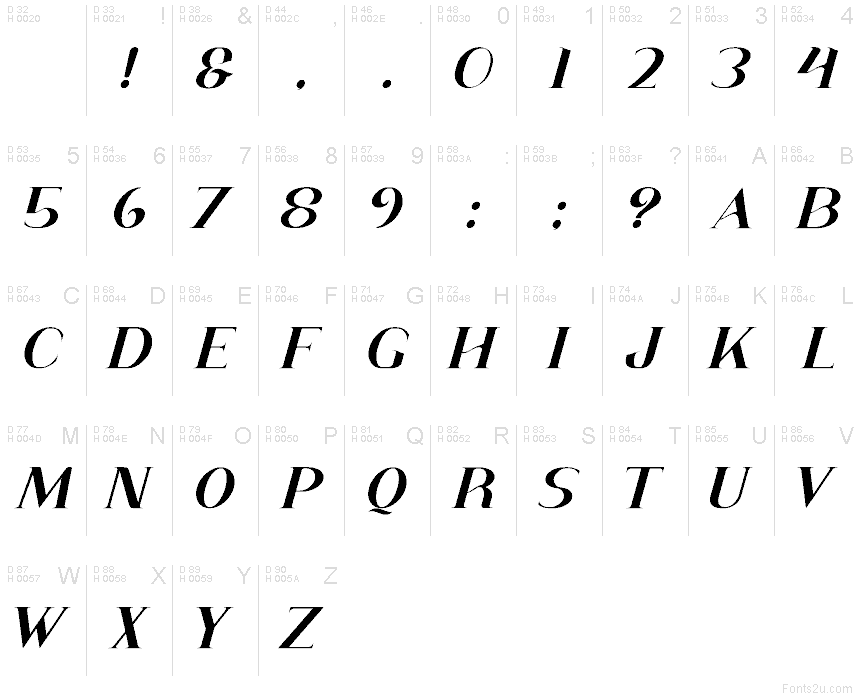
Rose Bella Italic font by Edy Wiyono is a free serif typeface that pours on the drama: long, sweeping italics, razor-fine strokes, and elegant curves that feel like ink dragged slowly across smooth paper. The Rose Bella family here leans into couture flair, with letters that seem to tilt forward in motion, adding a sense of romance and high-end polish to even a single word.
Using Rose Bella Italic, this free font shines on wedding invitations, fashion branding, perfume packaging, magazine covers, luxury logos, and social media quotes that need a refined signature feel. Its narrow, slanted forms save space while still reading clearly at larger sizes. Pair this typeface with a clean, modern sans serif in small caps to ground its theatrical energy and keep your layouts feeling balanced and sophisticated.